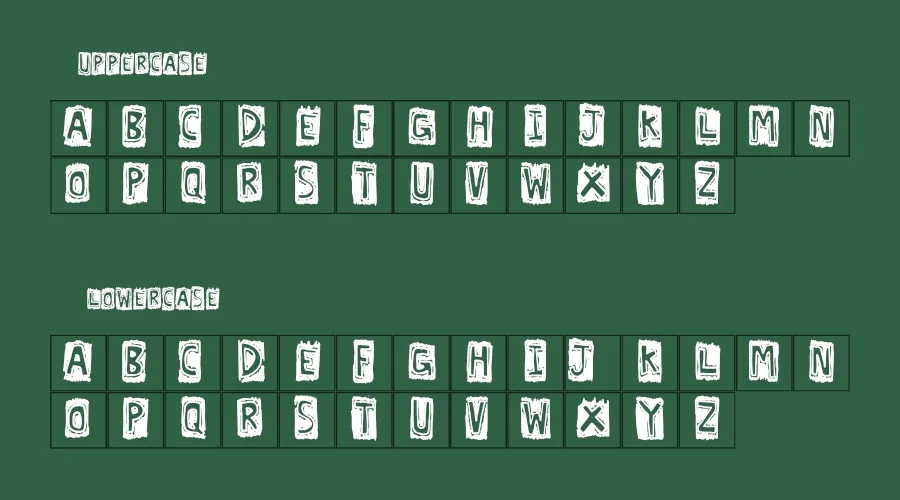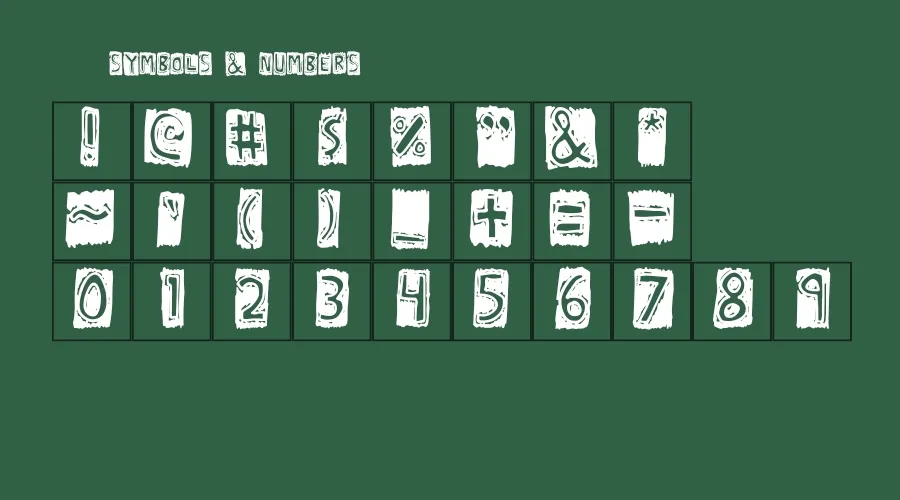
About Lexographer Font
Divide by Zero created Lexographer Font which is a fancy text style. It is ideal for every project and contains various capital and lower sets. You may utilize the sets of characters and distinct characters in these font stylings to create a variety of projects.
This font is a fantastic choice when you’re searching for a multipurpose, simple-to-read font that will make your text stand out. The elegance of your proposed project may be improved by combining this font style design with LHF charlotte font.
This is a flexible font that works well in a range of projects. The design is a wonderful choice whether you’re seeking a font with a contemporary design. This font may also be created and used in the online font generator tool.
This is a tremendous option for developing powerful and fashionable graphics. While the design can be utilized to produce striking headings, the low weight is ideal for the use of huge proportions.
Although the angled design works better for subtitles and message bodies, the form is best for headers and banners. This typeface is very similar to the winob font.
A typeface is an excellent option if you’re searching for a beautiful font that will create your creations shine. The typeface has a copy-and-paste feature.
There is a classy look to this font style design, which is easy, soft, and easy to read. Any kind of project design can be done with this program. It has all the features that are needed.
Is the Lexographer Font great to use?
This typeface is perfect for any venture such as advertisements, site layouts, social media posts, brands, cards, and more plans.
Does the Lexographer Font typeface have great readability?
This typeface has incredible meaningfulness. It may be a flexible text style that can be used for numerous unique projects.